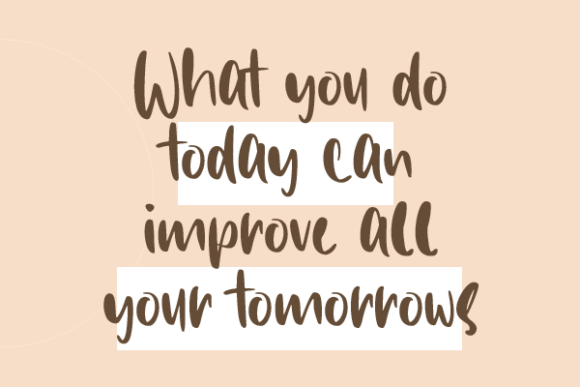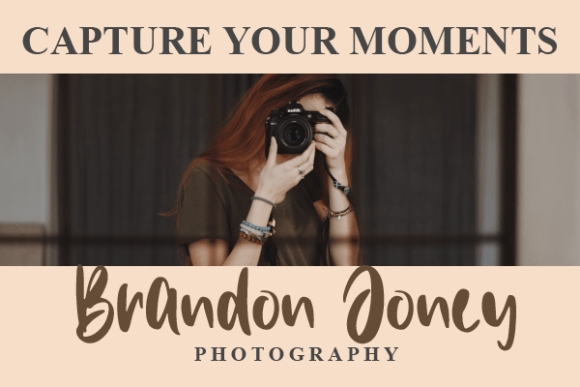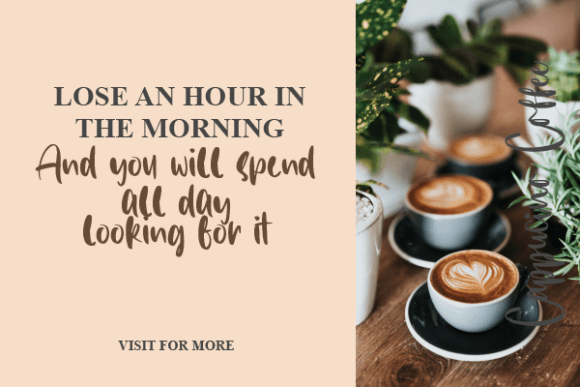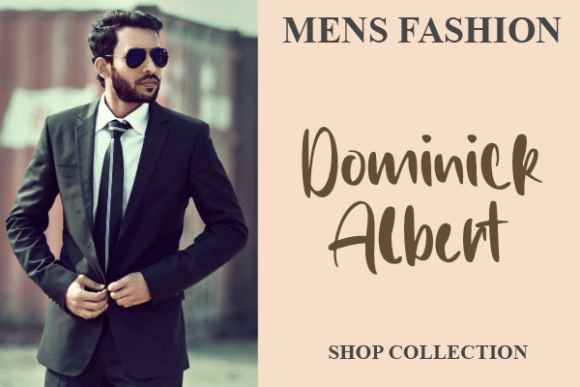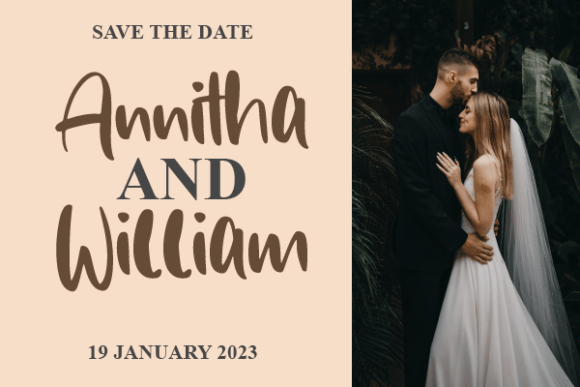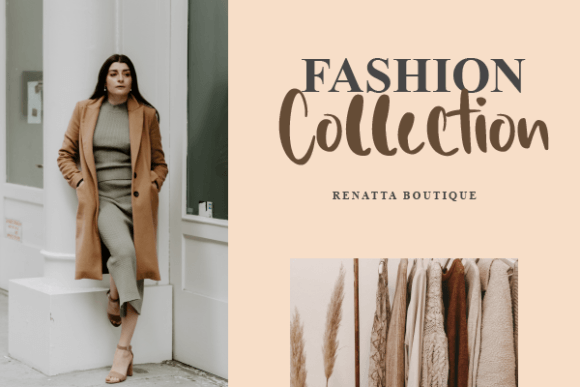
Introduction to Janice Annette Font
Janice Annette is a flowing handwritten font, described by an elegant touch, perfect for your favorite projects.
Key Features of Janice Annette Font
Why Choose Janice Annette Font?
Janice Annette Font offers exceptional quality and versatility, making it a valuable addition to your design toolkit. Whether you’re creating for personal projects or commercial use, Janice Annette Font delivers professional results.